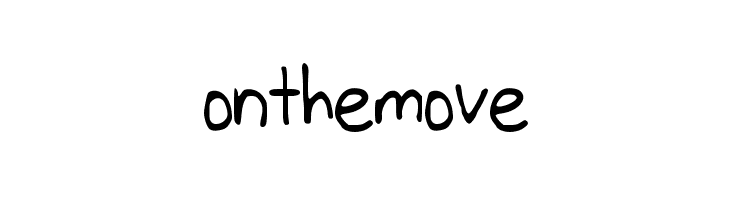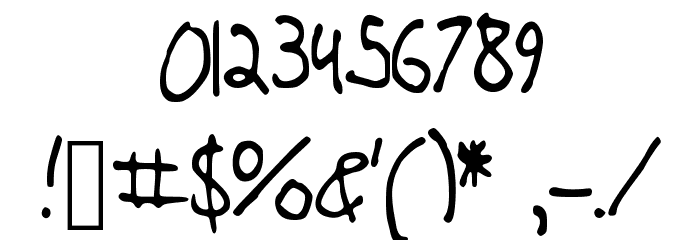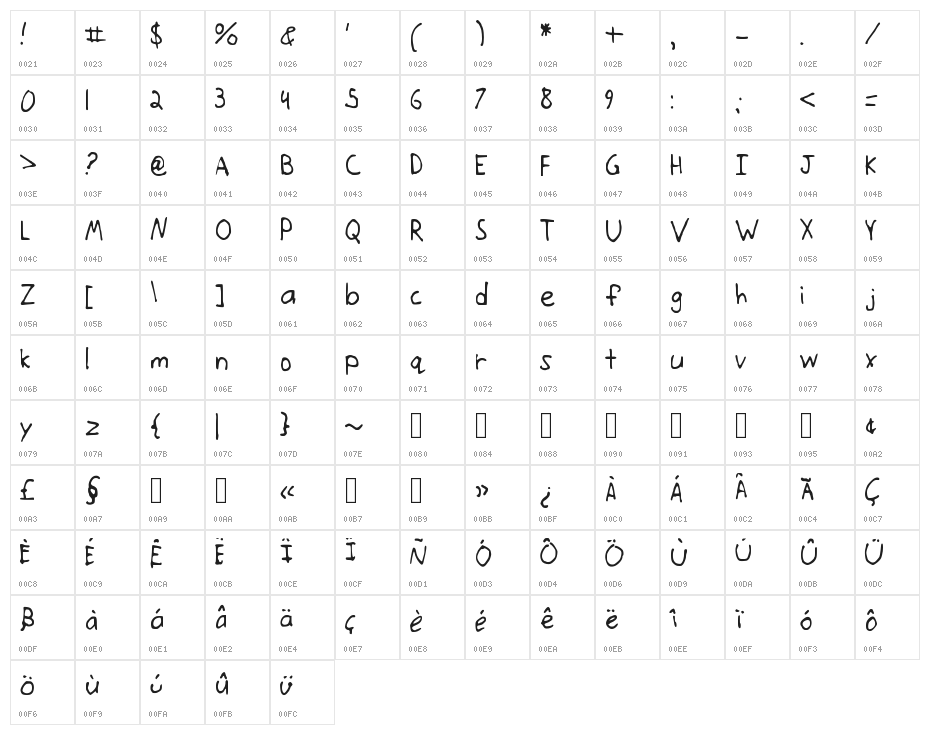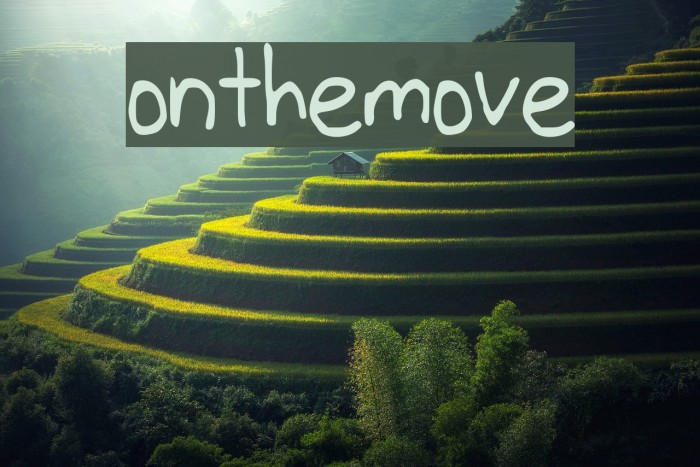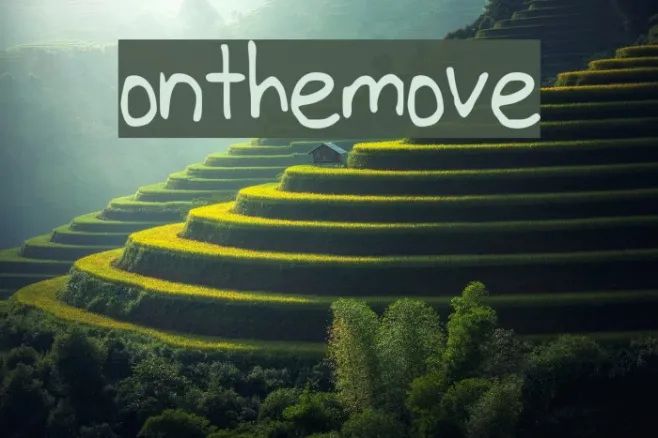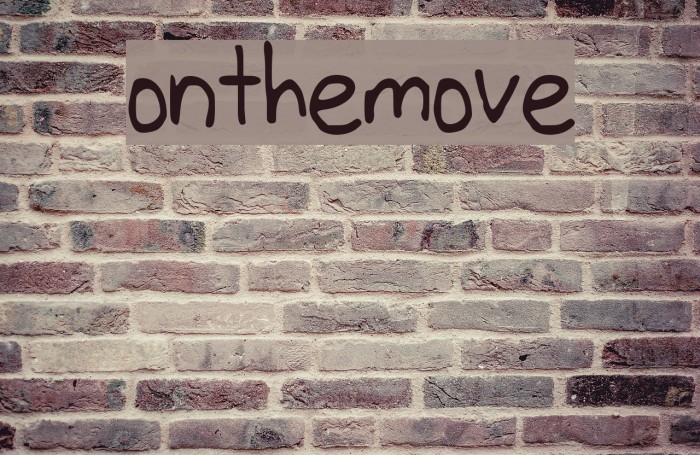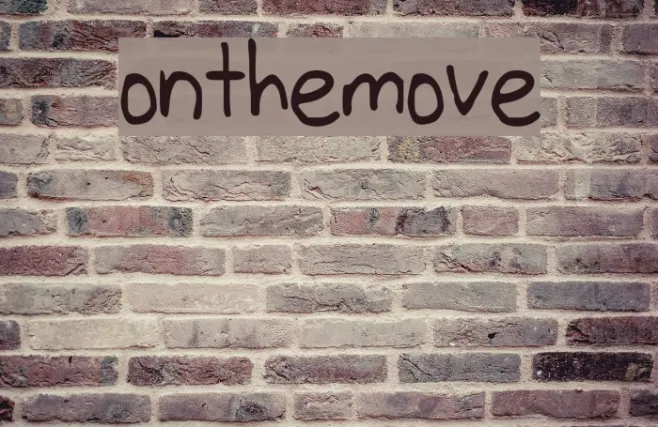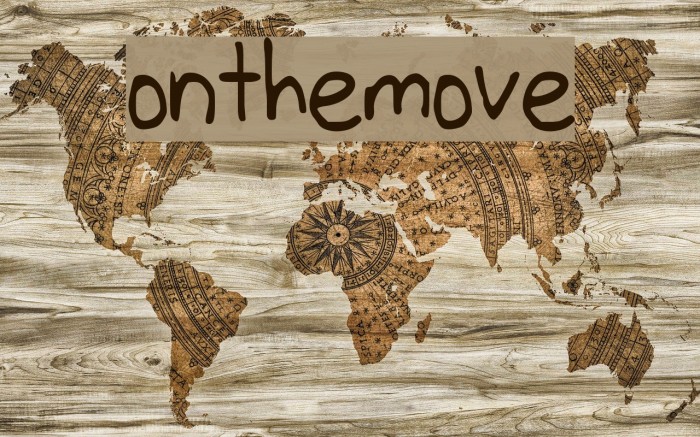
onthemove Font
onthemove Description
This font features a playful and informal handwritten style, characterized by its uneven strokes and casual appearance. The letters are slightly irregular, giving it a personal and approachable feel. The uppercase and lowercase letters maintain a consistent style, with rounded edges and a slight slant that adds to its dynamic look. Numbers and special characters follow the same informal aesthetic, making this font suitable for projects that require a friendly and relaxed tone. The overall design is simple yet effective, capturing the essence of handwritten notes or doodles.
| Use Case | Headlines, Logos, Informal text |
| Proposed Projects | Ideal for children's books, greeting cards, casual invitations, and personal blogs. |